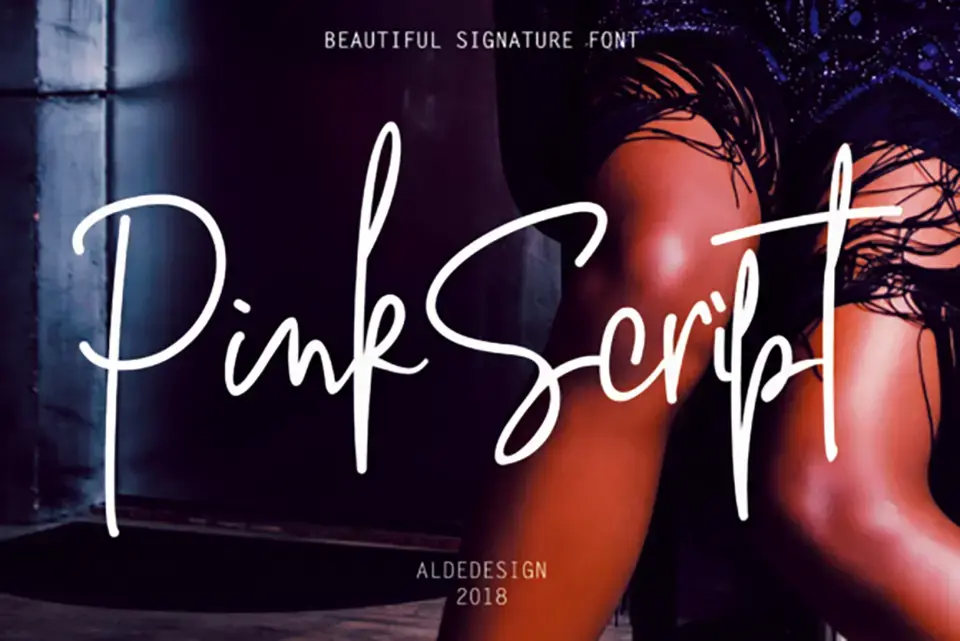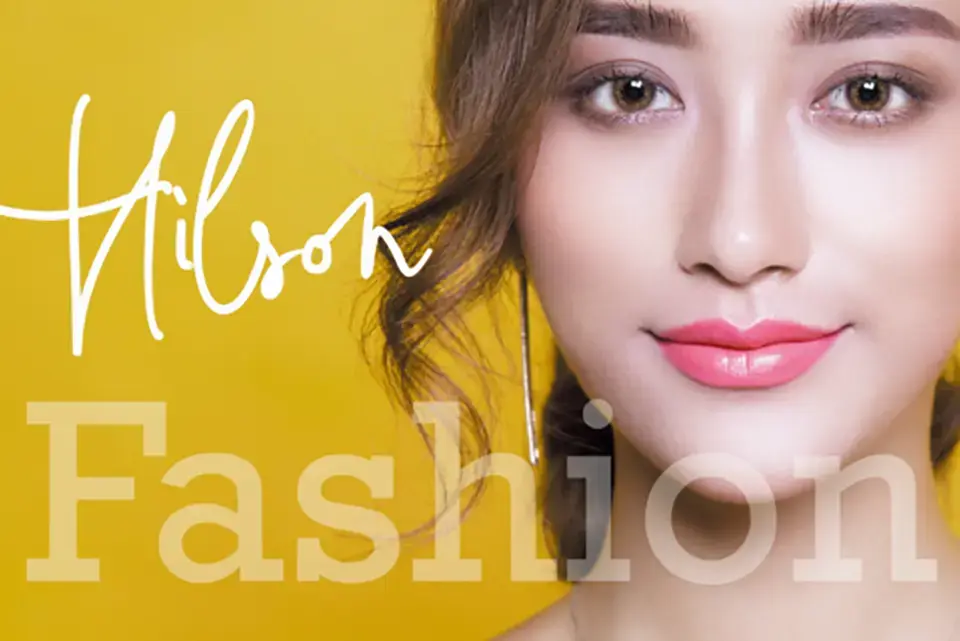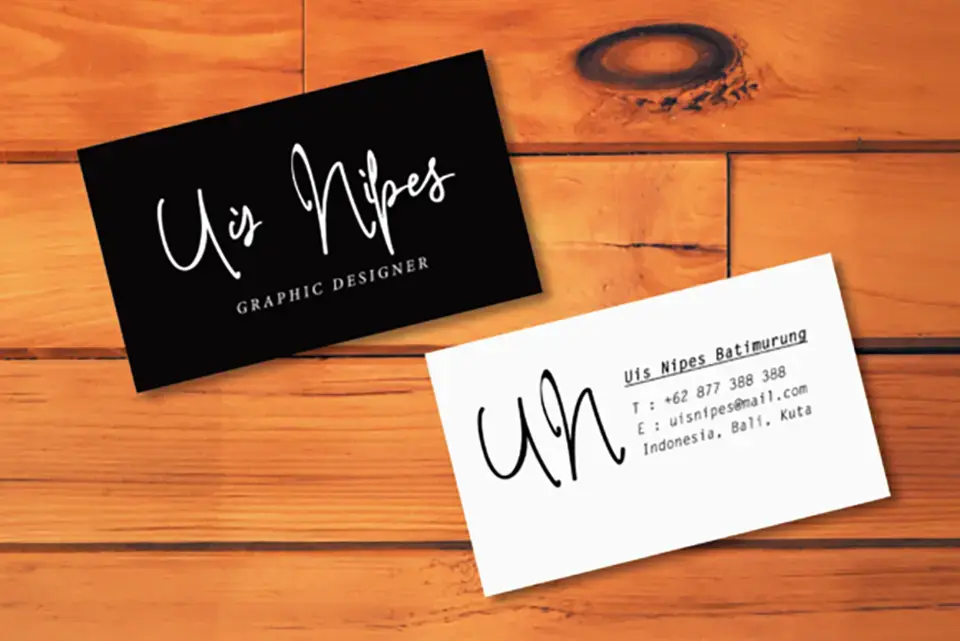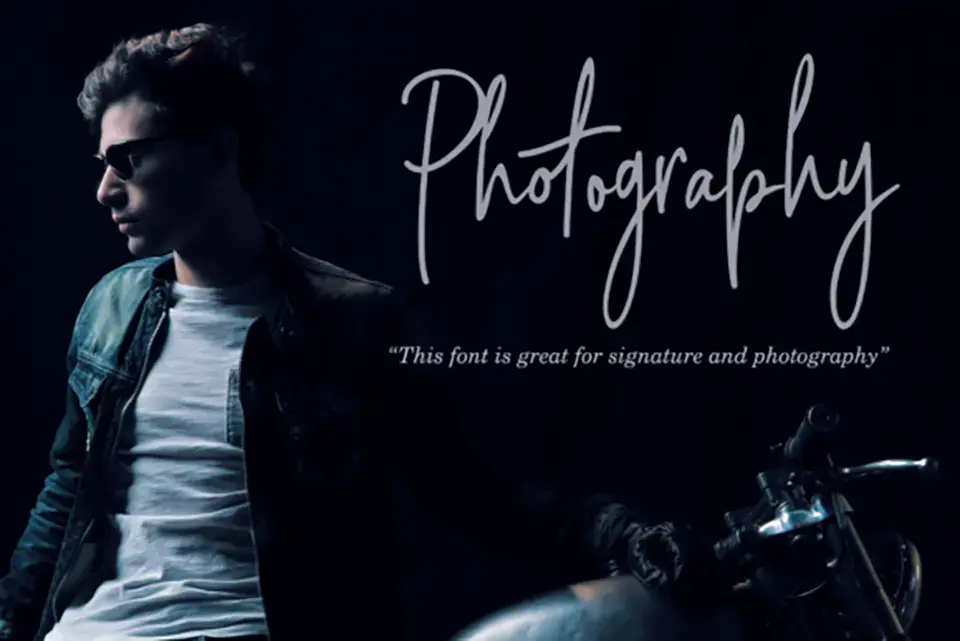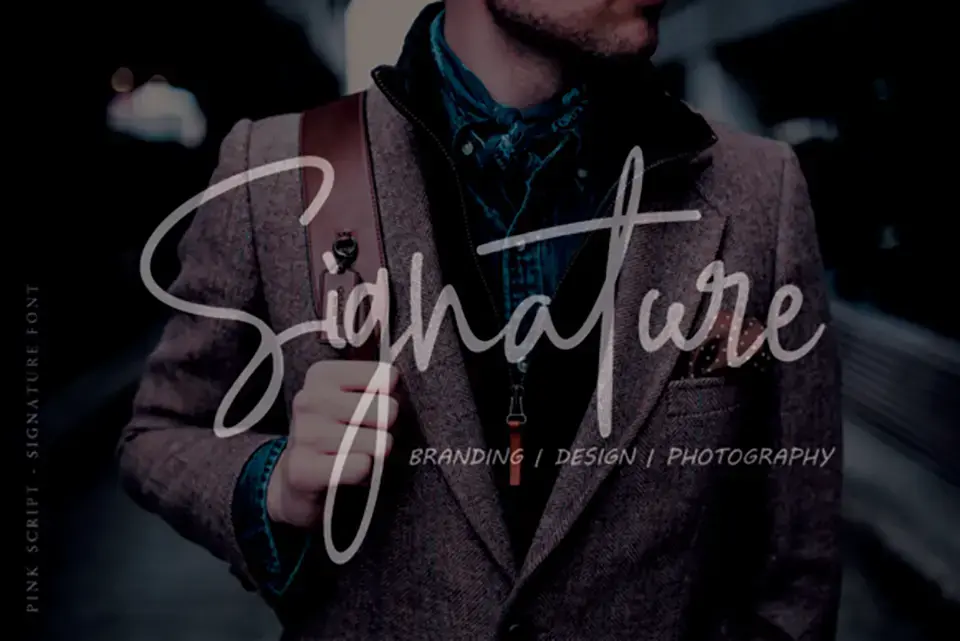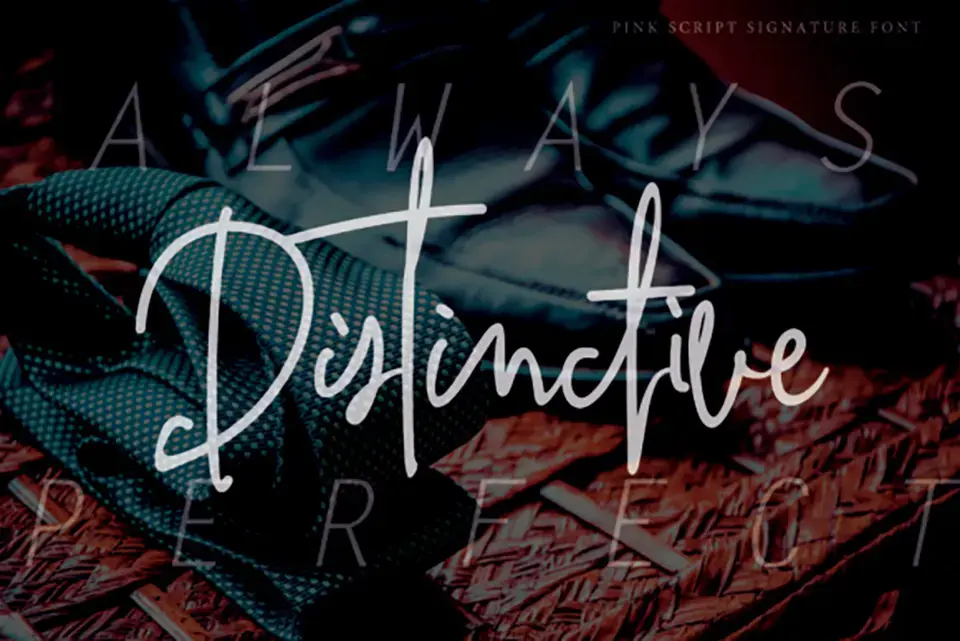
Pink Script Font
Designed by aldedesign
Pink Script is a cursive handwritten script with long, looping ascenders, rounded terminals, and a consistent medium weight that keeps strokes readable even at modest sizes. Letters connect smoothly with a relaxed slant, so words feel like a quick, confident signature rather than rigid calligraphy. It lends itself well to first names, short phrases, and logo-style wordmarks for beauty, lifestyle, or boutique projects that want a warm, informal voice. However, the decorative connections and varying baseline can become tiring in dense paragraphs, so it fits headings and accents far better than body copy or information-heavy layouts.
short, expressive name logos and wordmarks
wedding or event titles on invitations and signage
social media quotes and highlight covers
beauty, fashion, or lifestyle branding accents
long paragraphs or body text blocks
small UI labels or dense interface copy
formal corporate reports or technical documents
minimalist layouts that require strict neutrality
Perfect for branding, invitation, and logo, with a creative and handwritten style.